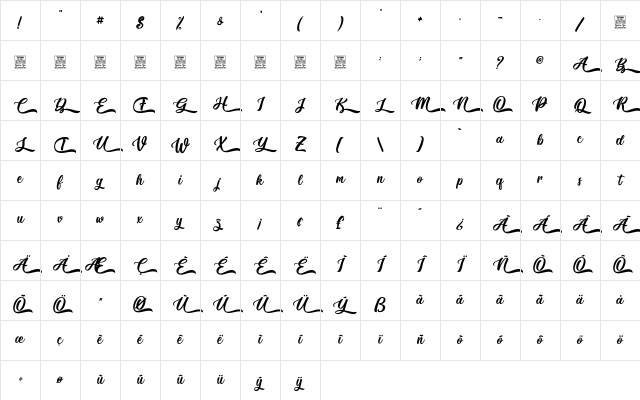
Celina Diary - Personal Use Regular Free Font
Celina Diary - Personal Use Regular
Foundry: Typhoon Type!" - Suthi Srisopha
Designer: Typhoon Type!" - Suthi Srisopha
Design Context for Celina Diary - Personal Use
Celina Diary - Personal Use is a composed and adaptable typeface that performs quietly and consistently across a wide range of design contexts.